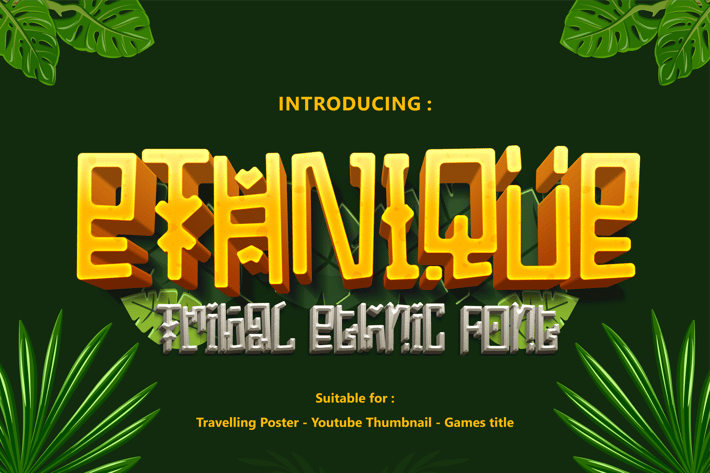
ETHNIQUE - Gaming font
ETHNIQUE - Tribal and Ethnic gaming font
Ethnique is a cultural display typeface built around long-tail keywords like "tribal-inspired geometric headline font"—crafted to inject identity, rhythm, and cultural memory into design. Featuring angular terminals, symmetrical blocks, and stencil-like separations, Ethnique channels the visual language of ancient civilizations. Its bold structure and symbolic aesthetic deliver high contrast and historical depth. The font exudes a ritualistic vibe—ideal for edgy branding, immersive editorial spreads, or heritage-based creative campaigns.
Whether you're launching an indie music festival, creating apparel for tattoo culture, or designing museum exhibit signage, Ethnique commands visual attention with historical gravity. Its vibe blends ancient codes with a modern edge—perfect for headlines that need to stand out in cultural branding, game design, or heritage-based merchandise. The glyph-like style immediately evokes curiosity, tying your message to themes of myth, ancestry, and rebellion.
Key Features
Tribal Heritage Meets Contemporary Form:
- Inspired by Mayan, Aztec, and African geometric patterns
- Strong vertical flow, angular shapes, and deliberate gaps
- Visual storytelling power rooted in symbolism and identity
Use Cases Across Industries:
- Festival posters, tribal tattoo brands, indie fashion labels
- Museum exhibits, music covers, and cultural publishing
- Suitable for both digital display and striking print use